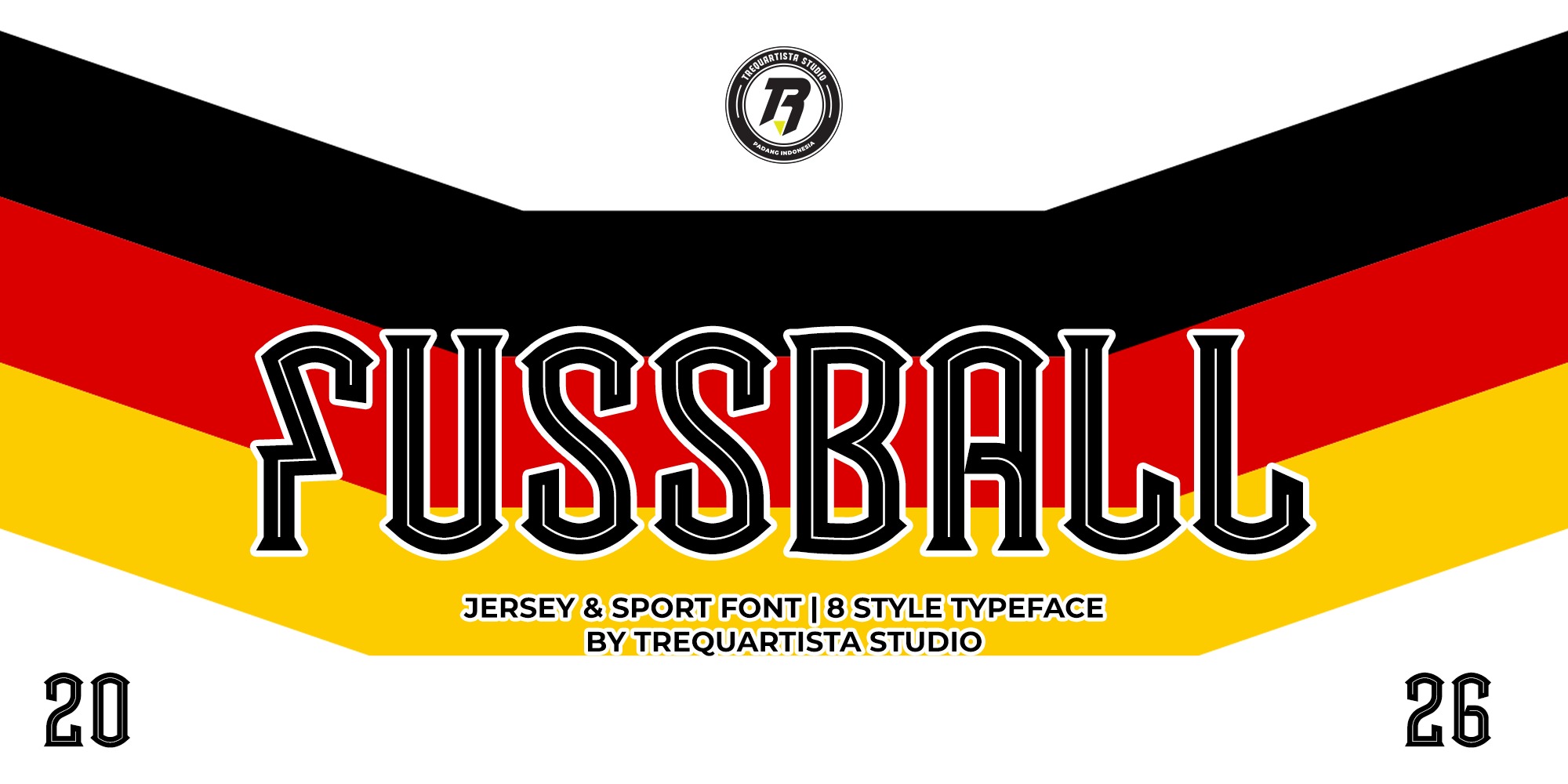
Fussball – Diplay Sport Font
Fussball – Diplay Sport Font is a versatile font designed to adapt beautifully across different design styles, offering dependable readability and balance. Fussball Jersey & Sport Font, designed by Trequartista Studio, is a bold and powerful typeface inspired by classic sports aesthetics. Its strong, athletic style makes it perfect for football jerseys and dynamic sports designs. Featuring distinctive double outlines in black and white, the characters stand out clearly on any background. This font family includes 8 styles, specifically crafted for printing player names and numbers on sports uniforms.